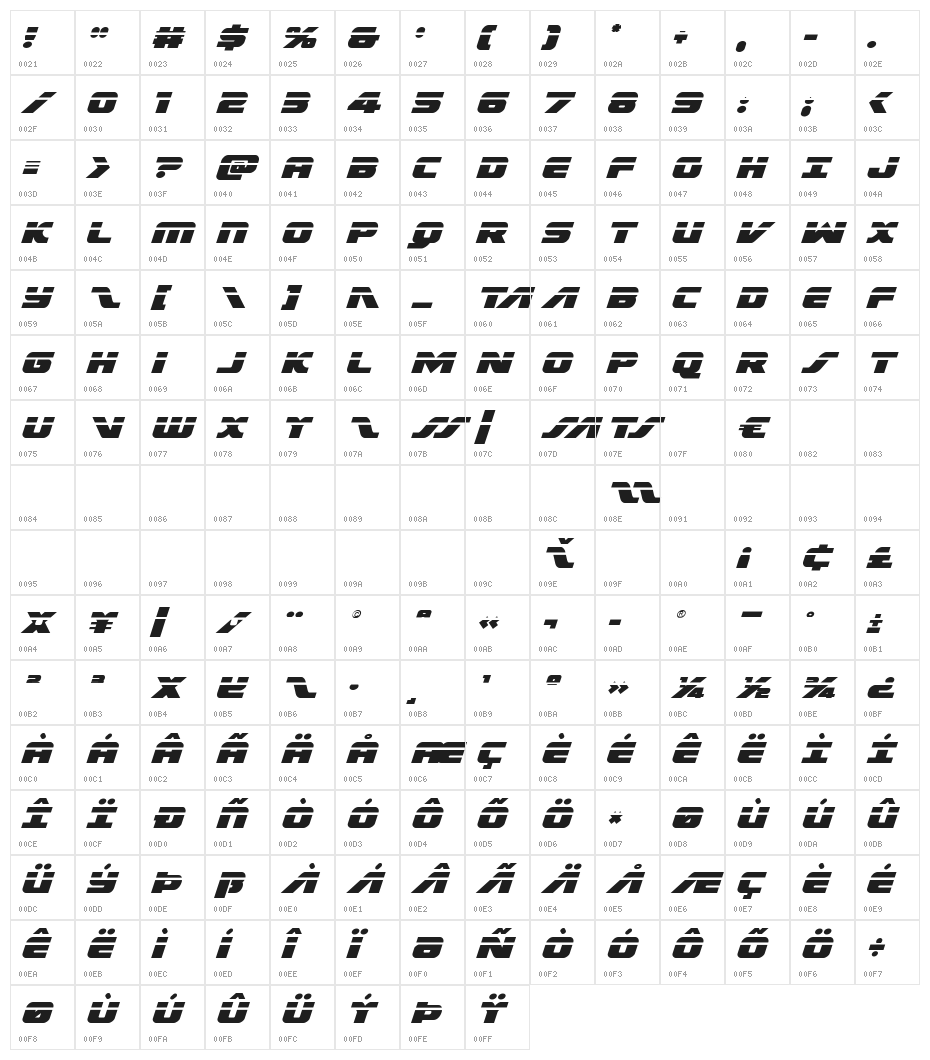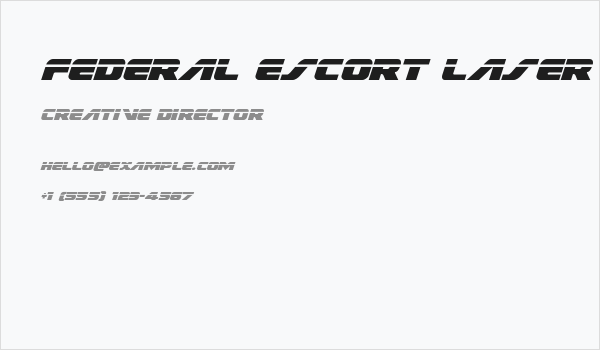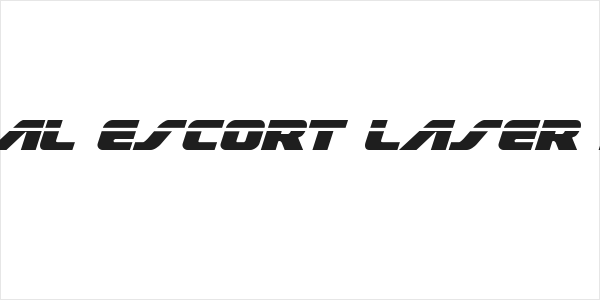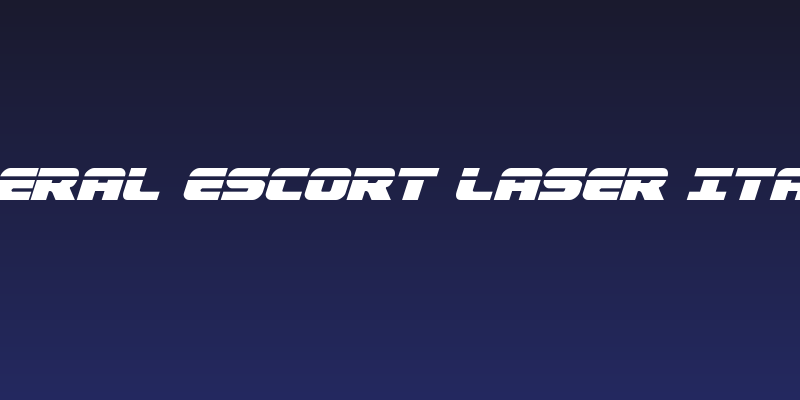
Federal Escort Laser Italic Font
Federal Escort Laser Italic Description
This font features a bold, futuristic design with a strong italic slant, giving it a dynamic and forward-moving appearance. The characters are constructed with sharp angles and geometric shapes, creating a sense of speed and modernity. The uppercase and lowercase letters maintain a consistent style, with the lowercase slightly smaller but equally bold. Numbers and special characters follow the same design principles, ensuring uniformity across all glyphs. The font's unique style makes it ideal for projects that require a modern, tech-inspired aesthetic.
| Proposed Projects | Ideal for technology branding, sci-fi themed designs, video game titles, and modern advertising. |